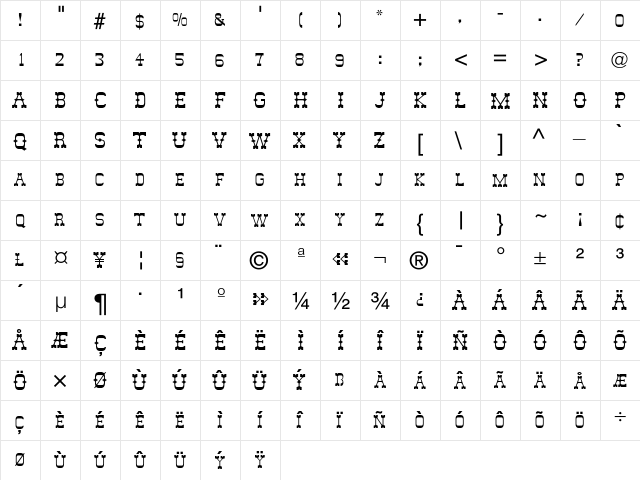
Abilene Normal Font Preview
Abilene Normal
Design Context for Abilene Typeface
Abilene takes a measured approach to typography — its balanced proportions and neutral character make it a reliable workhorse for both digital and print work.